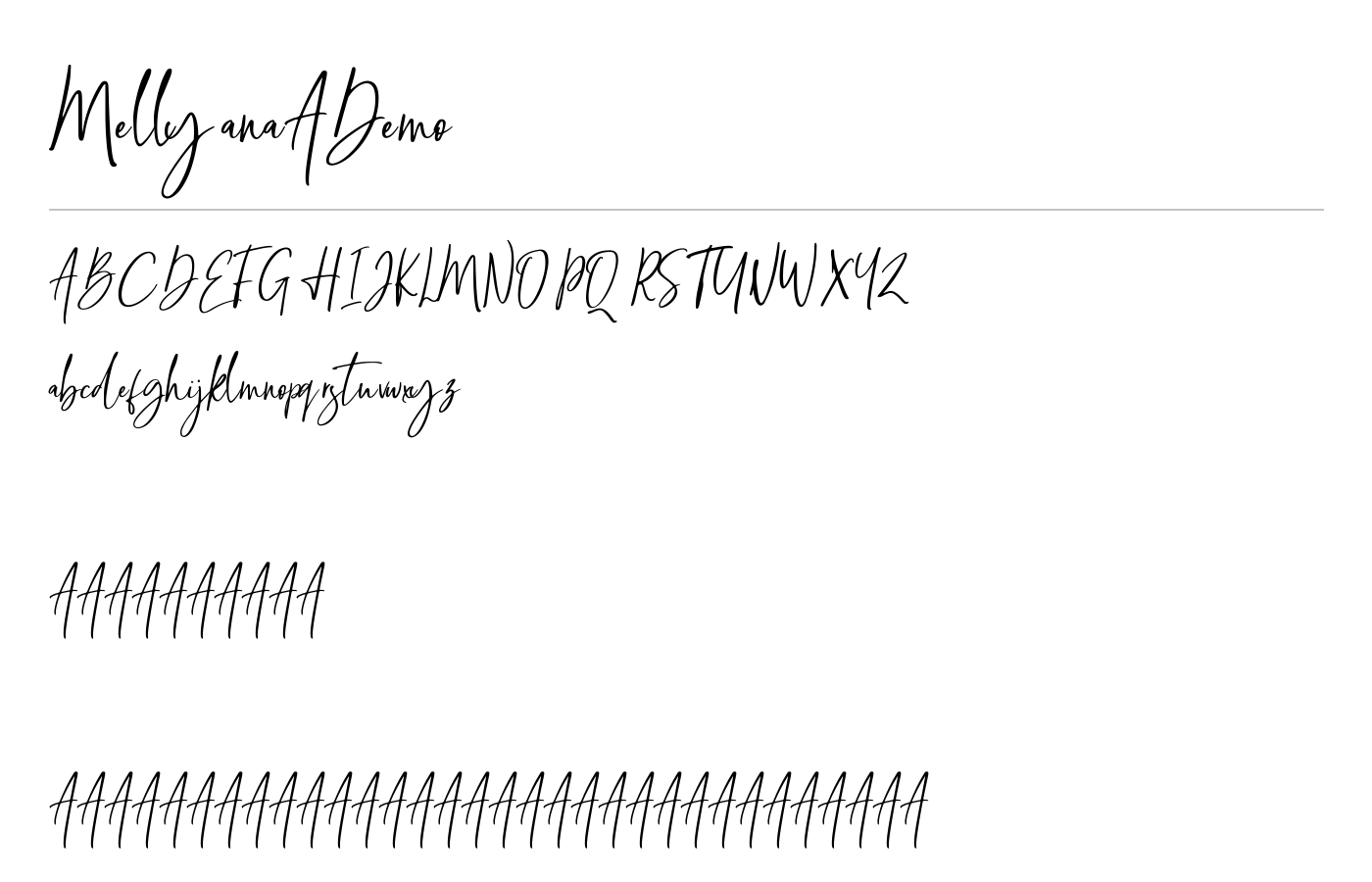
Mellyana Script Demo is a delicate and elegant handwritten script font with tall, narrow letterforms and a graceful, flowing style. Its fine, slightly irregular strokes give it a personal, artistic feel, making it ideal for creative branding, invitations, and feminine editorial designs. This font works best in contexts where a sophisticated, intimate, and modern handwritten touch is desired.
Mellyana Script Demo
About Mellyana Script Demo
| Font family | Mellyana Script Demo |
| Designer | Faisal Tanjung |